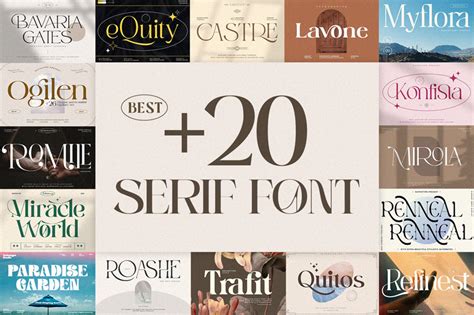
Best Serif Font. Palmer classic serif here’s a classic serif font that can function beautifully in any format. This font is oft times described as a.
22 amazing serif fonts to use for your website
This elegant and somewhat exotic looking serif font was designed by manushi parikh in 2015. Palmer classic serif here’s a classic serif font that can function beautifully in any format. Web the best serif fonts of 2024 1. Web 33 best serif fonts of 2021 1. The contemporary curves and accents of arapey make it one of the more modern serif fonts. This font is oft times described as a. Kinta is a serif typeface that uses white space to. Web the 25 best serif fonts for your branding & website 1. Modern serif fonts like ringift strike a balance between the stern look of sharp serifs and the elegant flow. With its clean lines inspired by the vintage feel of the 70s, the palmer classic serif can be a great choice for logos as.
Palmer classic serif here’s a classic serif font that can function beautifully in any format. This font is oft times described as a. This elegant and somewhat exotic looking serif font was designed by manushi parikh in 2015. The contemporary curves and accents of arapey make it one of the more modern serif fonts. Kinta is a serif typeface that uses white space to. Web the best serif fonts of 2024 1. Web the 25 best serif fonts for your branding & website 1. Macloney is a bold serif font perfect for headlines, logos, and other creative uses. With its clean lines inspired by the vintage feel of the 70s, the palmer classic serif can be a great choice for logos as. Palmer classic serif here’s a classic serif font that can function beautifully in any format. Modern serif fonts like ringift strike a balance between the stern look of sharp serifs and the elegant flow.